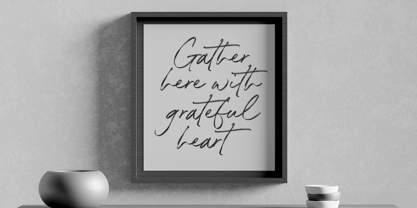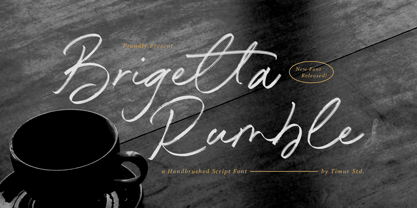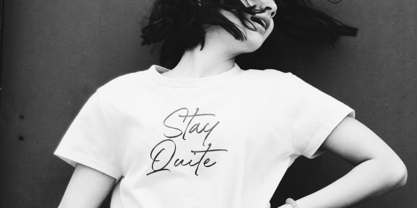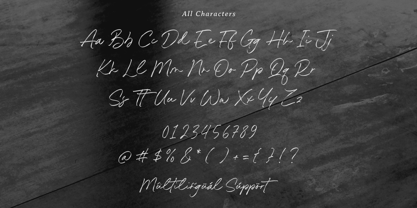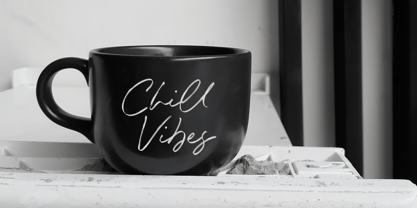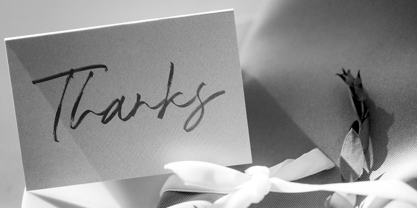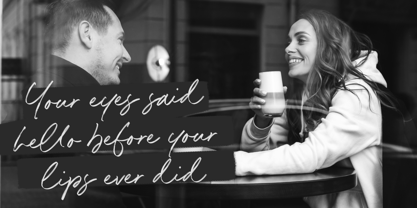
Brigetta Rumble
by Timurtype
The Brigetta Rumble Font Family was designed by Wara Sigit Tri Pamungkas and published by Timurtype. Brigetta Rumble contains 1 styles. More about this family
Introduced by Timurtype Studio!
Brigetta Rumble is a Handbrushed Script Font
This font is a stylish handbrushed script font that combines bold strokes with fluid, natural curves. Designed to evoke a sense of modern elegance and creative flair, it's perfect for logos, branding, social media graphics, and artistic typography. Its organic brush style adds a handcrafted touch to any design.
Brigetta Rumble Font also supports multilingualism
Designers: Wara Sigit Tri Pamungkas
Foundry: Timurtype